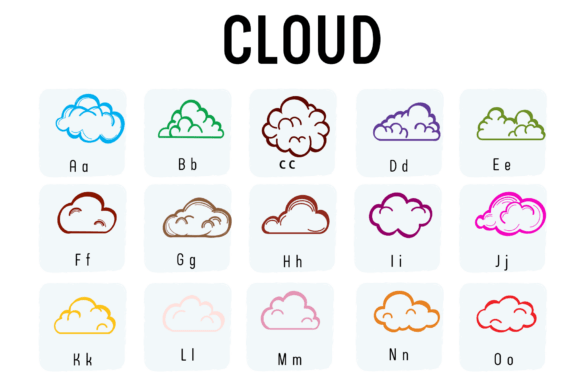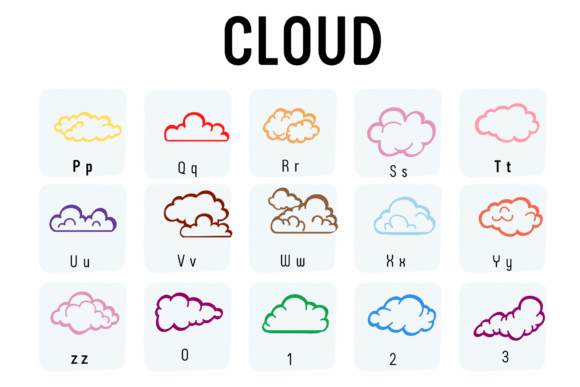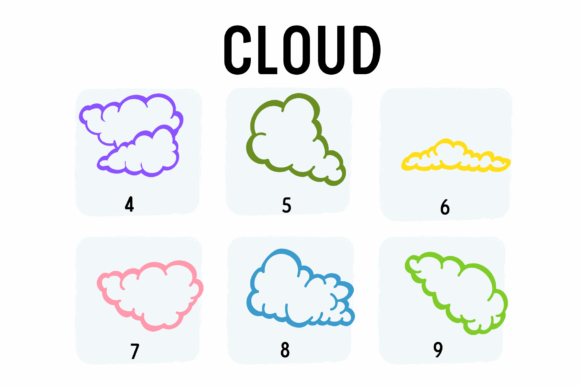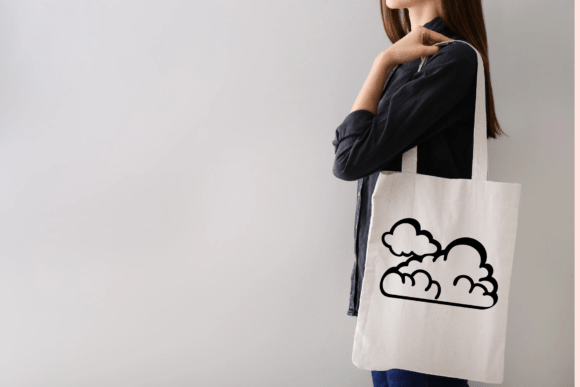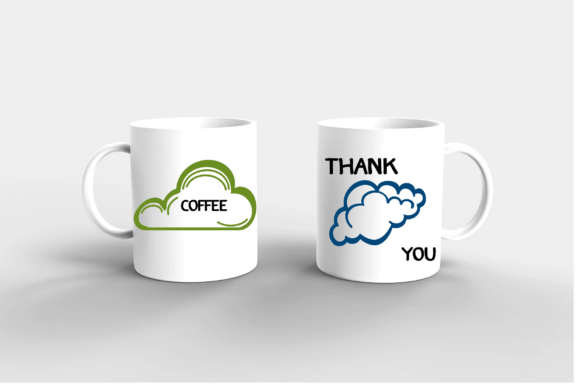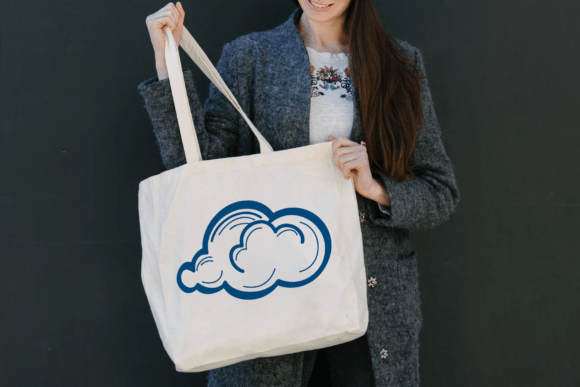
Elevate Your Designs with Cloud Font: A Dreamy Set of Hand-Drawn Cloud Illustrations
Are you a designer or crafter looking for a unique and whimsical touch to add to your projects? Look no further than Cloud Font, a beautiful set of hand-drawn cloud illustrations available as a font. This delightful dingbat pack, also known as Cloud Dingbats, offers a range of fluffy, outlined, and expressive styles that are perfect for a variety of creative endeavors.
What is Cloud Font?
Cloud Font is a carefully crafted collection of cloud illustrations that can be used as a font in your designs. This means you can easily access and insert these adorable cloud images into your projects, just like you would with any other font. The Cloud Font set includes a wide range of cloud styles, from soft and puffy to bold and outlined, ensuring that you have plenty of options to choose from.
Perfect for Children’s Books and Weather-Themed Designs
Cloud Font is an ideal choice for designers and authors working on children’s books. The whimsical and dreamy nature of these cloud illustrations will surely captivate young readers and add a touch of magic to your story. Additionally, the weather-themed designs will make your book a standout in the market.
Weather-themed designs, such as forecasts, climate-related projects, or even simple icons, can also greatly benefit from Cloud Font. The variety of cloud styles allows you to pick the perfect image to convey the message you want to communicate. Whether you’re designing a logo, a brochure, or a social media post, Cloud Font has got you covered.
Ideal for Logos and Digital Scrapbooking
Cloud Font is not just limited to children’s books and weather-themed designs. The versatility of this dingbat pack makes it suitable for a wide range of applications, including logo design and digital scrapbooking.
For logo designers, Cloud Font offers a unique opportunity to create memorable and distinctive brand identities. The hand-drawn cloud illustrations can be used to convey a sense of lightness, freedom, and creativity, making them perfect for businesses that want to stand out from the crowd.
Digital scrapbookers will also love Cloud Font, as it provides a beautiful and playful way to add visual interest to their pages. Whether you’re creating a digital album, a photo collage, or a simple graphic, Cloud Font’s cloud illustrations will add a touch of whimsy and personality to your design.
Key Features of Cloud Font
- Hand-drawn cloud illustrations: Each cloud image in Cloud Font is carefully hand-drawn, ensuring a unique and personal touch.
- Variety of styles: From fluffy to outlined and expressive styles, Cloud Font offers a range of cloud illustrations to suit your design needs.
- Available as a font: Easily access and insert cloud images into your designs using Cloud Font.
- Ideal for children’s books, weather-themed designs, logos, and digital scrapbooking: Cloud Font’s versatility makes it suitable for a wide range of creative projects.
Tips for Using Cloud Font
- Experiment with different styles: Don’t be afraid to try out different cloud styles to find the one that works best for your design.
- Combine with other fonts and graphics: Cloud Font can be paired with other fonts and graphics to create a unique and visually appealing design.
- Use in digital and print projects: Cloud Font can be used in both digital and print projects, making it a versatile addition to your design toolkit.
In conclusion, Cloud Font is a beautiful and versatile dingbat pack that offers a range of hand-drawn cloud illustrations perfect for designers and crafters. With its variety of styles, ease of use, and suitability for a wide range of creative projects, Cloud Font is sure to become a favorite in your design toolkit.